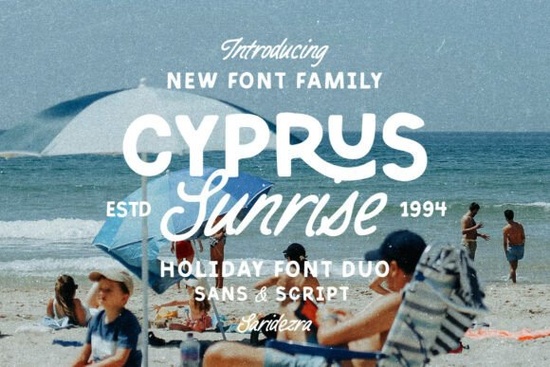
If you're looking for a hand-lettered font duo that feels warm, natural, and just a little bit rustic without sacrificing clarity or versatility you’ll likely enjoy the Cyprus Sunrise Duo Font. It’s not overly polished or digital-perfect, and that’s exactly why it works so well for real-world creative projects. Think of it as two fonts that were made to sit side by side: one bold, friendly sans serif with thoughtful ligatures, and one smooth, monoline handwritten script that flows like ink on paper. Together, they give your designs texture, personality, and cohesion especially when you’re aiming for something grounded, outdoorsy, or quietly elegant.
When does Cyprus Sunrise work best?
This duo shines in contexts where authenticity matters more than slickness. Wedding stationery is an obvious fit the script adds intimacy to vows or names, while the sans serif grounds headings or details with quiet confidence. But it’s also great for small-batch product labels (like artisan soap or local honey), café menus, or seasonal social media graphics for boutiques and makers. Because the sans serif has ligatures and subtle irregularities not rigid geometry it avoids feeling sterile or corporate. And the script isn’t overly swirly or hard to read at smaller sizes, making it practical for both print and digital use.
How do the two fonts complement each other?
The pairing feels intentional, not accidental. The sans serif has soft edges and slight variations in stroke weight enough to feel handmade but still legible in all caps or tight layouts. Its ligatures (like “fi”, “fl”, “ff”) help words breathe naturally, especially in headlines or short phrases. The script mirrors that warmth with consistent line thickness and gentle rhythm. It doesn’t jump around or demand attention; instead, it supports the message. You can layer them thoughtfully say, a bold sans serif logo over a script tagline or alternate them across a mood board or packaging suite without visual whiplash.
What kinds of projects do designers actually use it for?
- Branding for lifestyle or nature-based businesses think hiking gear, botanical skincare, or farm-to-table food brands.
- Print-on-demand products like mugs, tote bags, or greeting cards where a relaxed, human touch stands out next to mass-produced fonts.
- Small business signage, especially for cafes, studios, or craft fairs where you want charm without clutter.
- Digital quotes or Instagram story templates the script reads clearly even on mobile screens when sized appropriately.
You’ll also find it pairs well with neutral color palettes and organic textures kraft paper, linen backgrounds, or watercolor overlays. It’s not a “one-size-fits-all” font, but it’s surprisingly flexible within its lane: warm, approachable, and quietly confident.
How does it compare to other hand-lettered duos?
Unlike some script-heavy combos that lean too decorative or hard to mix, Cyprus Sunrise keeps things balanced. If you’ve tried Gunken, you’ll notice Cyprus Sunrise is softer and less geometric. Compared to Once After, it trades dramatic contrast for consistency and ease of use ideal if you’re designing quickly or don’t want to spend time adjusting letter spacing manually. And while Sarcastic brings playful energy, Cyprus Sunrise leans into calm sincerity. For a more grounded alternative, Gebuk offers bolder impact, but Cyprus Sunrise gives you gentler options for delicate or nature-forward themes.
One thing worth noting: this is a duo, not a full family. So if you need extensive weights (light, medium, bold) or italics, you’ll want to pair it with a neutral supporting font. But for most branding, invitations, or small-run print jobs, having two well-matched styles is often all you need and sometimes, more than enough.